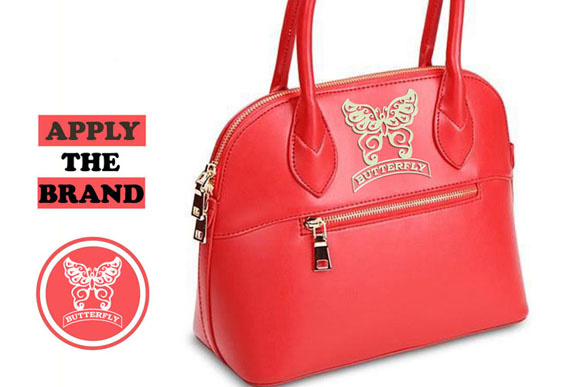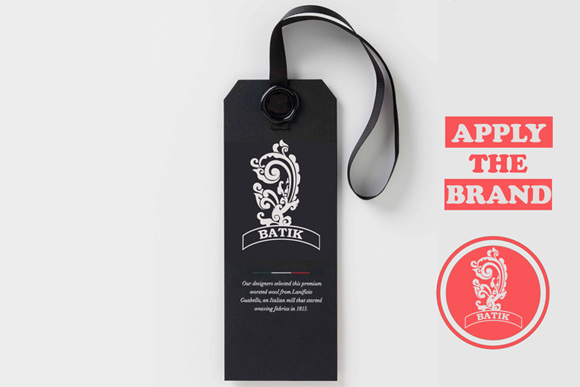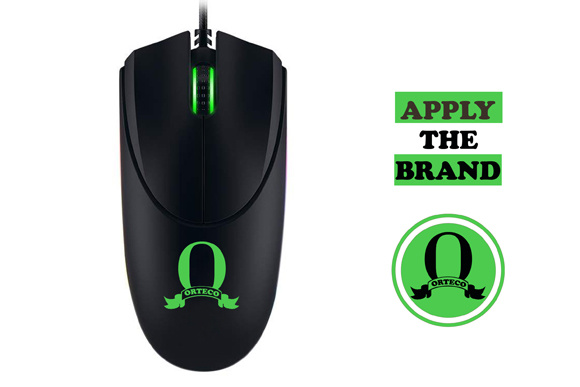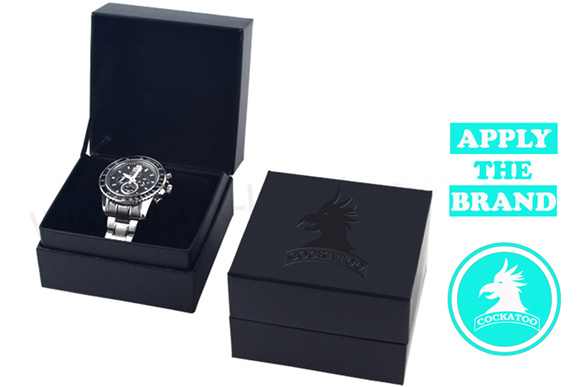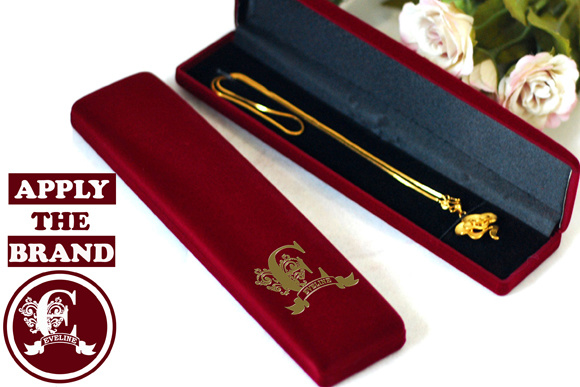
Discover the Elegance of Charlie Monogram Font
In the world of typography and design, monogram fonts hold a special place for their elegance, simplicity, and the personal touch they bring to any design project. Among these, the Charlie Monogram Font stands out for its versatility and aesthetic appeal. This article aims to provide a comprehensive overview of the Charlie Monogram Font, its features, and how it can be a valuable asset for designers and crafters alike.
Introduction to Charlie Monogram Font
The Charlie Monogram Font is a stylish and modern monogram font that has gained popularity among designers and crafters. What makes Charlie Monogram unique is its ability to be used as a standalone element or as part of a larger design, offering flexibility and creativity in various projects. Whether you’re working on brand clothes, jewelry brands, fashion brands, or any other creative endeavor, Charlie Monogram can add a touch of sophistication and elegance.
Features of Charlie Monogram Font
One of the standout features of the Charlie Monogram Font is its compatibility with another monogram font known as Bravo Monogram. Bravo Monogram contains a monogram in 2 different style letters and 3 different motif logo styles, making it a comprehensive tool for designers. When paired with Charlie Monogram, the possibilities for creating unique and compelling designs expand significantly.
Charlie Monogram itself is beautiful in its simplicity. It can easily be colored in, allowing designers to match it with their brand colors or the overall aesthetic of their project. This feature is particularly useful for those working on branded merchandise or fashion items where color consistency is key.
The real power of Charlie Monogram lies in its versatility. Designers can use it as a standalone monogram for a clean and elegant look or combine it with other elements to create a more complex design. For instance, pairing Charlie Monogram with Bravo Monogram’s various styles can result in a wide range of unique logos, icons, or brand identifiers.
Moreover, the font can be used across different mediums and platforms. Whether you’re designing a logo for a fashion brand, creating custom jewelry, or working on apparel, Charlie Monogram can be seamlessly integrated into your design. Its scalability ensures that it looks great on both small items like jewelry and larger formats like billboards or clothing.
Technical Considerations
An important note about using Charlie Monogram Font is the flexibility it offers in terms of font pairing. Users can use any font to fill in the blank part of the split in their design program. This means that designers are not limited by the font choices provided with Charlie Monogram; instead, they can select from a wide range of fonts to complement their design and match their brand’s typography.
- Experiment with Color: Don’t be afraid to play with different colors to find the perfect match for your brand or project. The ability to color Charlie Monogram easily makes it a great tool for projects where color is a key element.
- Combine with Other Elements: Consider combining Charlie Monogram with other design elements like textures, patterns, or Bravo Monogram’s logo styles to create a more dynamic and engaging design.
- Consider Your Audience: Tailor your use of Charlie Monogram to appeal to your target audience. For example, a more minimalist use of the font might be better for high-end fashion brands, while a more colorful approach might suit a youth-oriented brand.
| Font Name | Charlie Monogram Font |
| Author | Amanda_Design |
The Charlie Monogram Font is a versatile and elegant design tool that offers a wide range of possibilities for designers and crafters. Its simplicity, combined with its potential for customization and integration with other design elements, makes it an excellent choice for anyone looking to add a personal touch to their projects. Whether you’re working on a fashion brand, jewelry line, or any other creative endeavor, Charlie Monogram Font is sure to enhance your design with its sophisticated appeal.